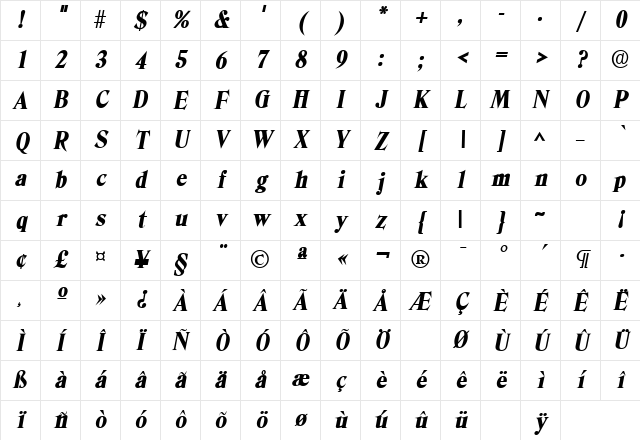
DenverLH Bold Italic
Design Context for DenverLH
DenverLH is a composed and adaptable typeface that performs quietly and consistently across a wide range of design contexts. The slanted form adds forward momentum and visual energy. Its bold stroke weight gives it real presence on the page.
Pro Tip: Use DenverLH for emphasis, pull quotes, and subheadings where its slanted energy can add rhythm to the layout.